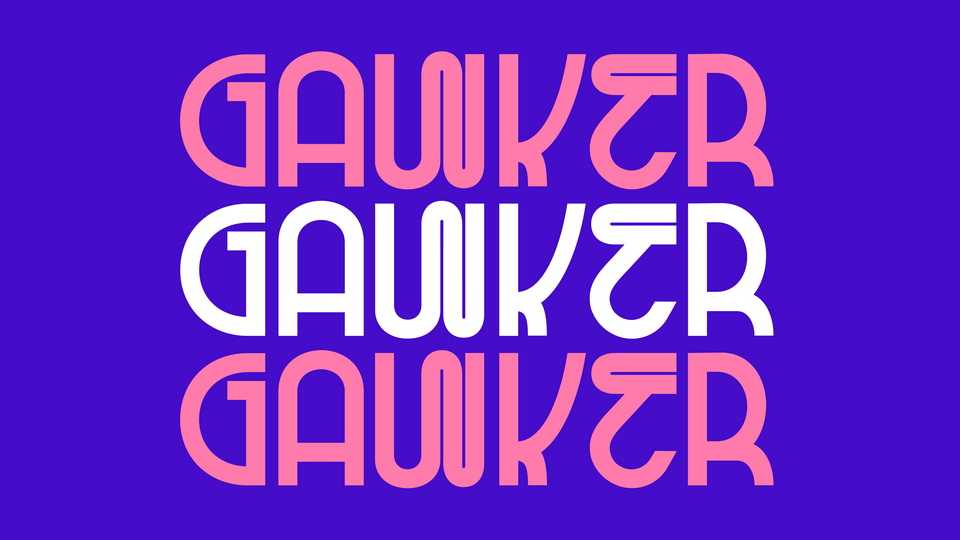
Download Gawker font, a bold display typeface with tight kerning and unique glyph characteristics. Gawker is perfect to be used for modern branding, magazine layout, headlines and posters.
Designer: Tyler McFaul